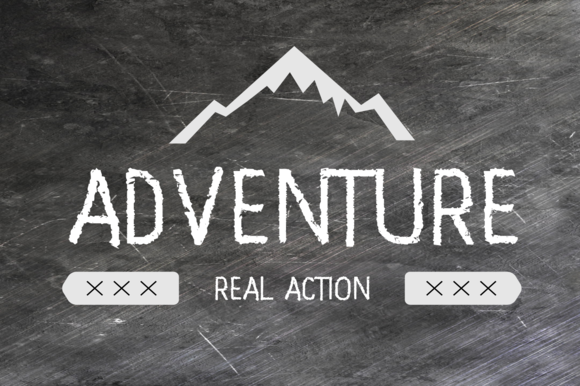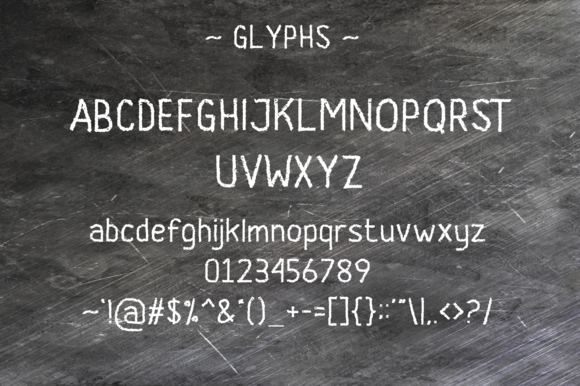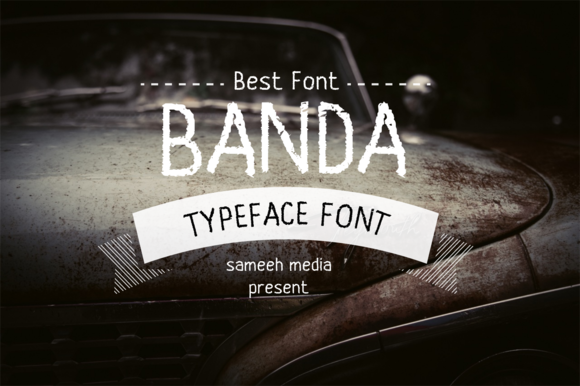
Banda Font: A Clean, Simple, and Vintage Typeface Inspired by Indonesia
In the world of typography, fonts play a crucial role in conveying messages, expressing emotions, and creating visual identities. For designers, crafters, and typography enthusiasts, finding the perfect font can be a daunting task. However, if you’re looking for a clean, simple, and vintage typeface that exudes elegance and sophistication, look no further than the Banda Font. Inspired by a place in Indonesia, this beautiful font is sure to captivate your audience and elevate your design game.
The Story Behind Banda Font
Banda Font is a typeface that draws inspiration from the rich cultural heritage of Indonesia. The font’s creator, insert designer name, was fascinated by the unique blend of traditional and modern elements that characterize the country’s visual identity. By combining clean lines, simple shapes, and vintage flair, the designer crafted a font that embodies the spirit of Indonesia’s vibrant culture.
Banda Font boasts a range of design characteristics that make it an excellent choice for various design projects. Some of its key features include:
• Clean and Simple: Banda Font features clean lines, simple shapes, and a minimalist approach that makes it perfect for body text, headings, and titles.
• Vintage Flair: The font’s vintage inspiration adds a touch of elegance and sophistication, making it ideal for designs that require a classic, timeless look.
• High Legibility: Banda Font is designed to be highly legible, even at small font sizes, ensuring that your message is conveyed clearly and effectively.
• Versatile: This font is suitable for a wide range of design applications, including branding, packaging, posters, and digital media.
What Makes Banda Font Unique?
In a sea of fonts, Banda Font stands out for several reasons:
• Unique Cultural Inspiration: The font’s Indonesian inspiration sets it apart from other typefaces, offering a distinctive and exotic flair.
• Hand-Crafted Attention to Detail: Each letterform in Banda Font has been carefully crafted to ensure a high level of detail and precision.
Using Banda Font in Your Design Projects
Banda Font is an incredibly versatile typeface that can be used in a variety of design projects. Here are a few ideas to get you started:
• Branding and Logo Design: Use Banda Font to create elegant and sophisticated logos, business cards, and brand materials.
• Posters and Flyers: Add a touch of vintage flair to your posters and flyers with Banda Font, perfect for promoting events, products, or services.
• Packaging Design: Elevate your packaging design with Banda Font, ideal for product labels, tags, and packaging materials.
• Digital Media: Use Banda Font in your digital media projects, such as website headers, social media graphics, and email newsletters.
In conclusion, Banda Font is a beautiful, clean, simple, and vintage typeface that is sure to captivate designers, crafters, and typography enthusiasts alike. With its unique cultural inspiration, hand-crafted attention to detail, and open-source accessibility, this font is an excellent addition to any design project. Whether you’re looking to create elegant branding materials, eye-catching posters, or sophisticated packaging design, Banda Font is the perfect choice. So why wait? Download Banda Font today and elevate your design game!